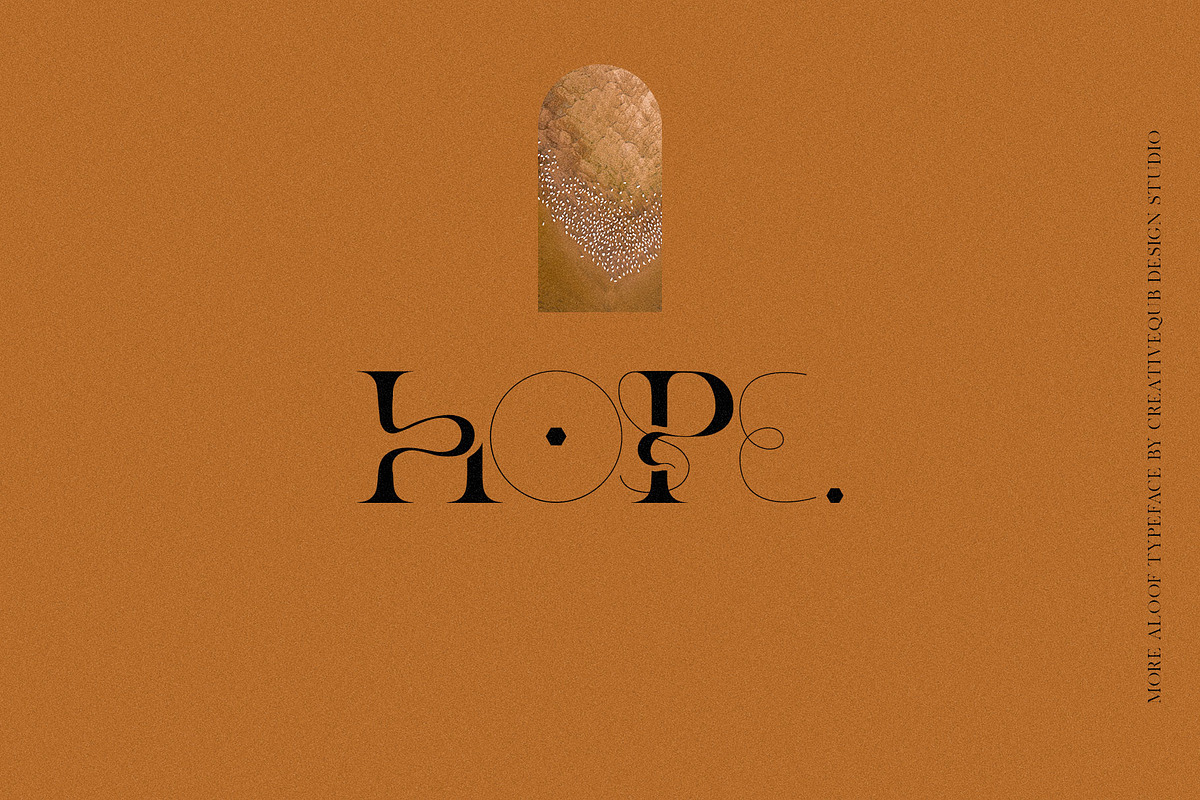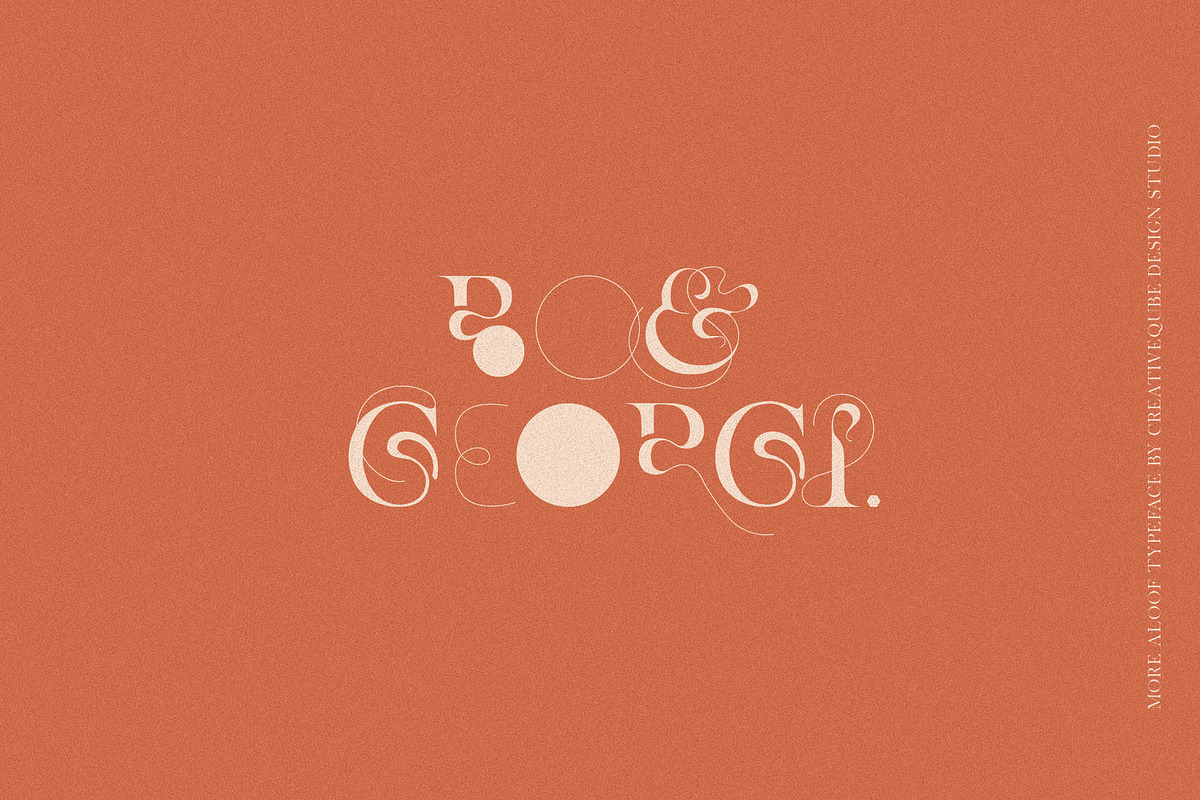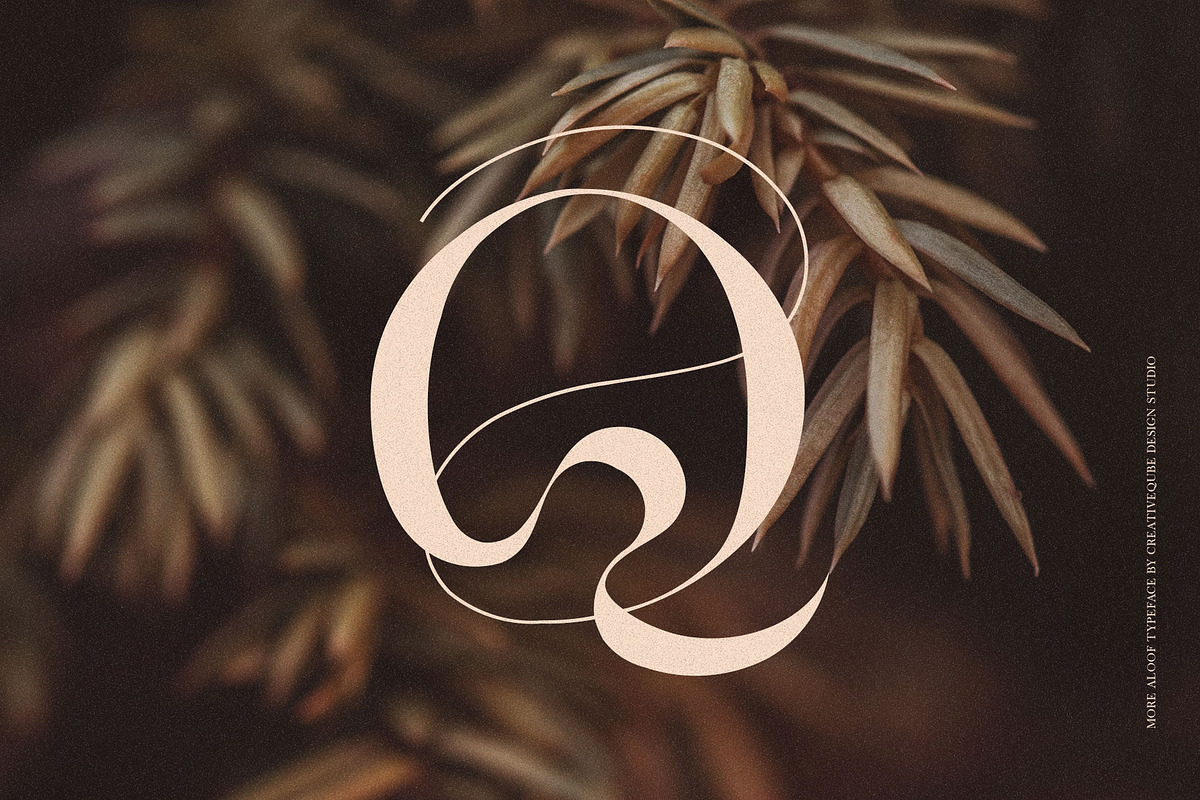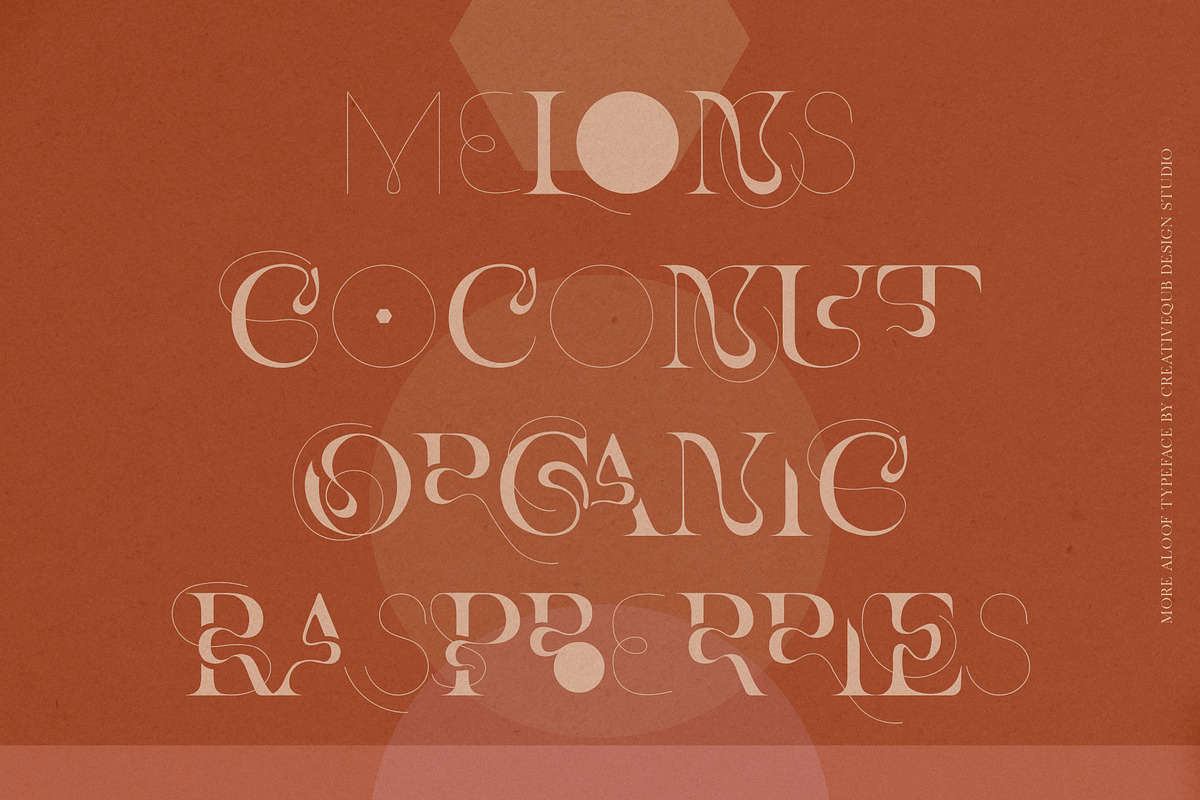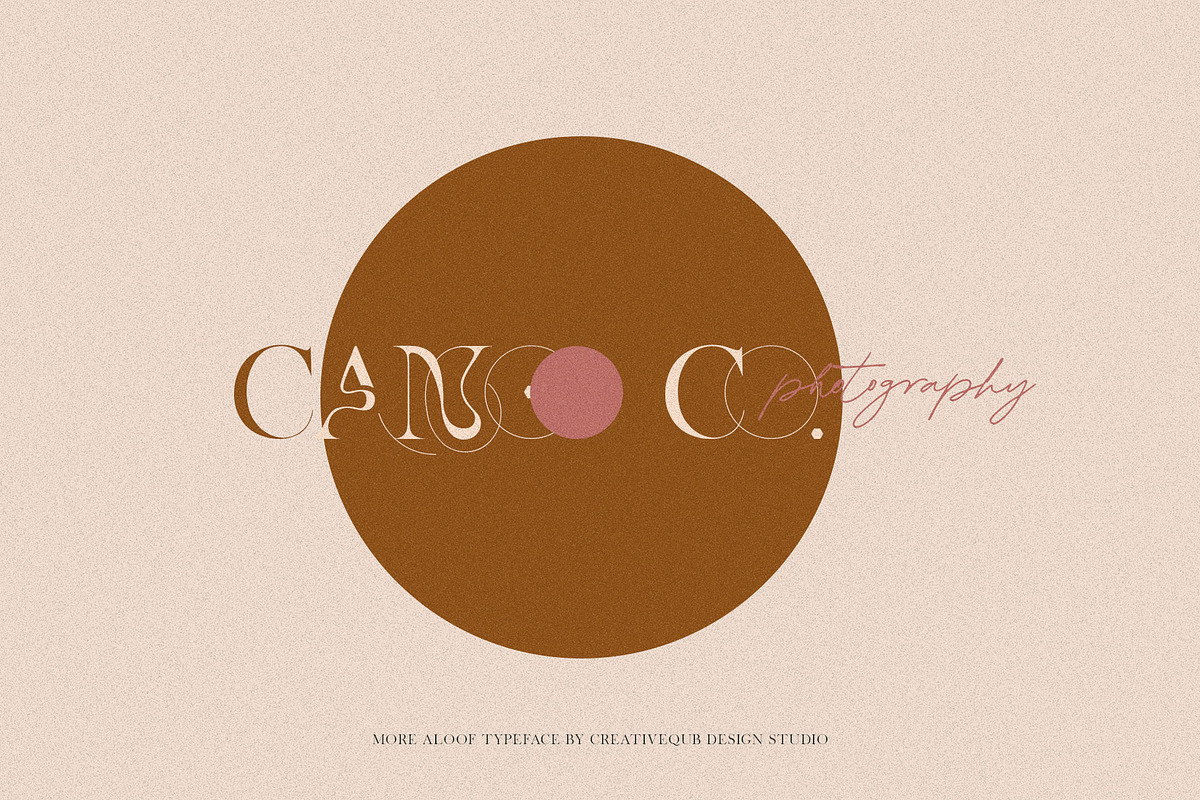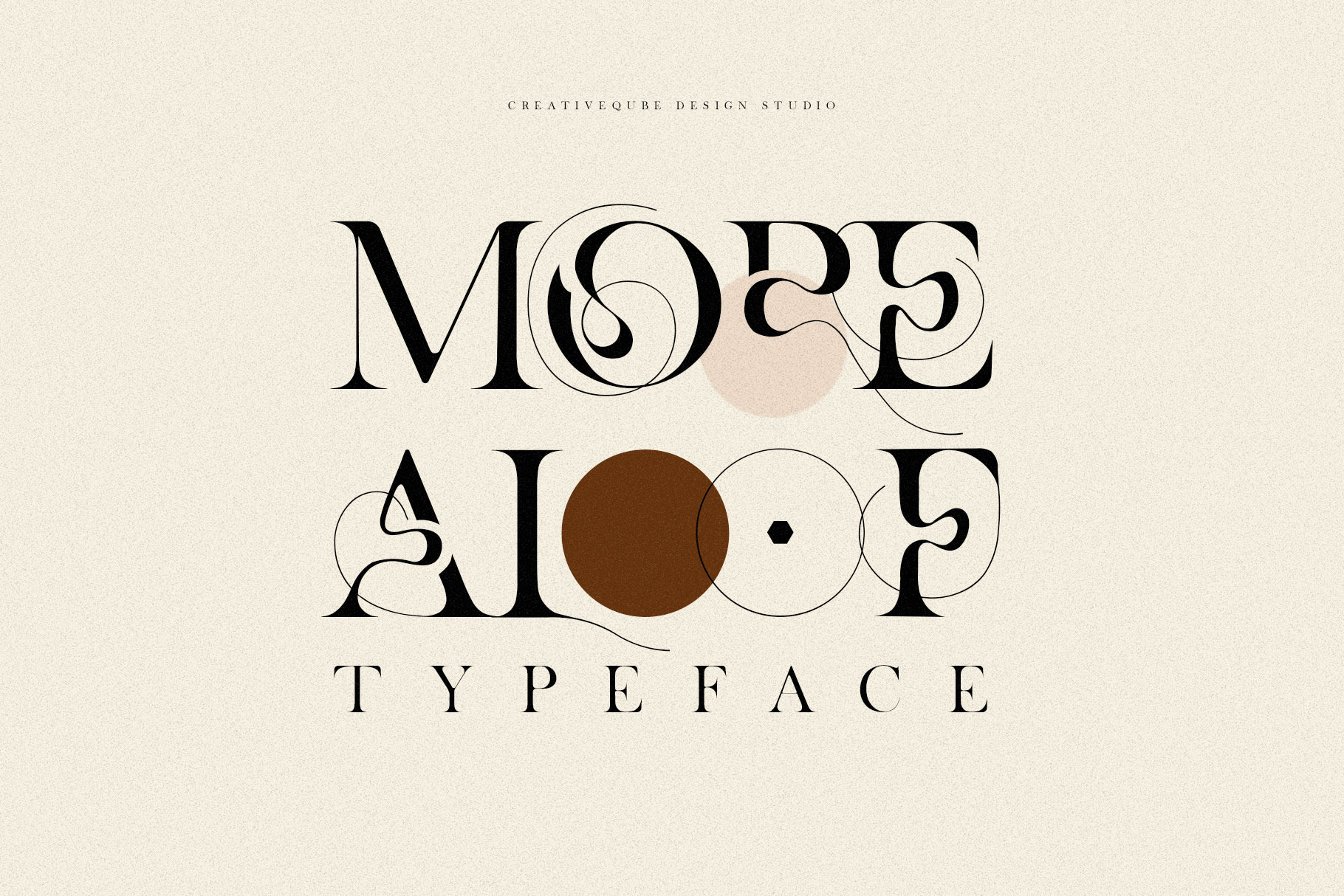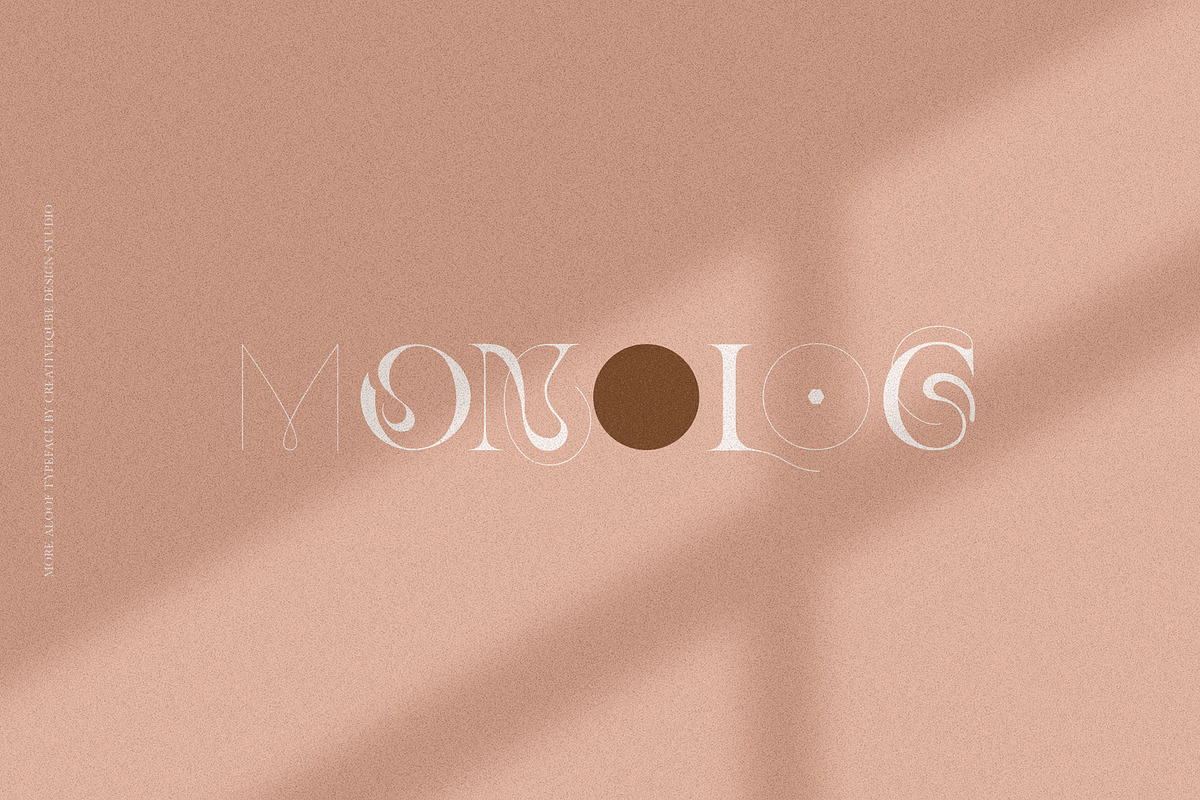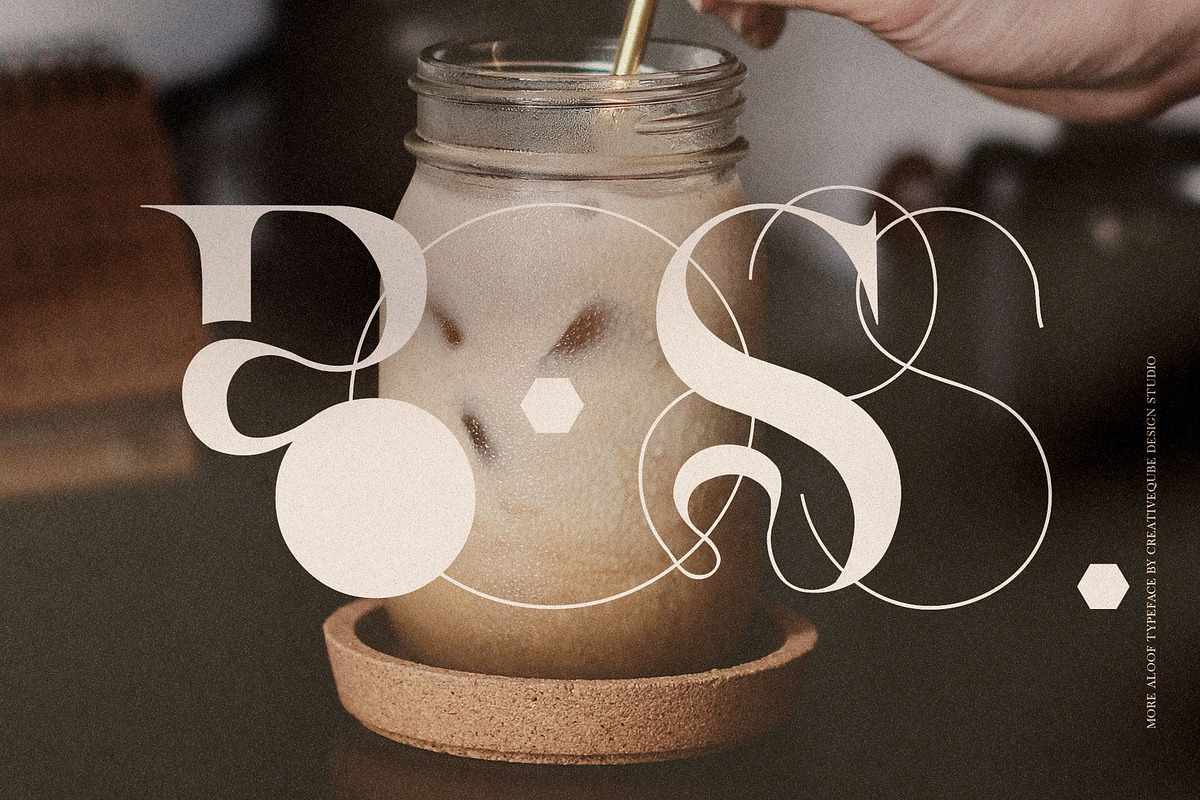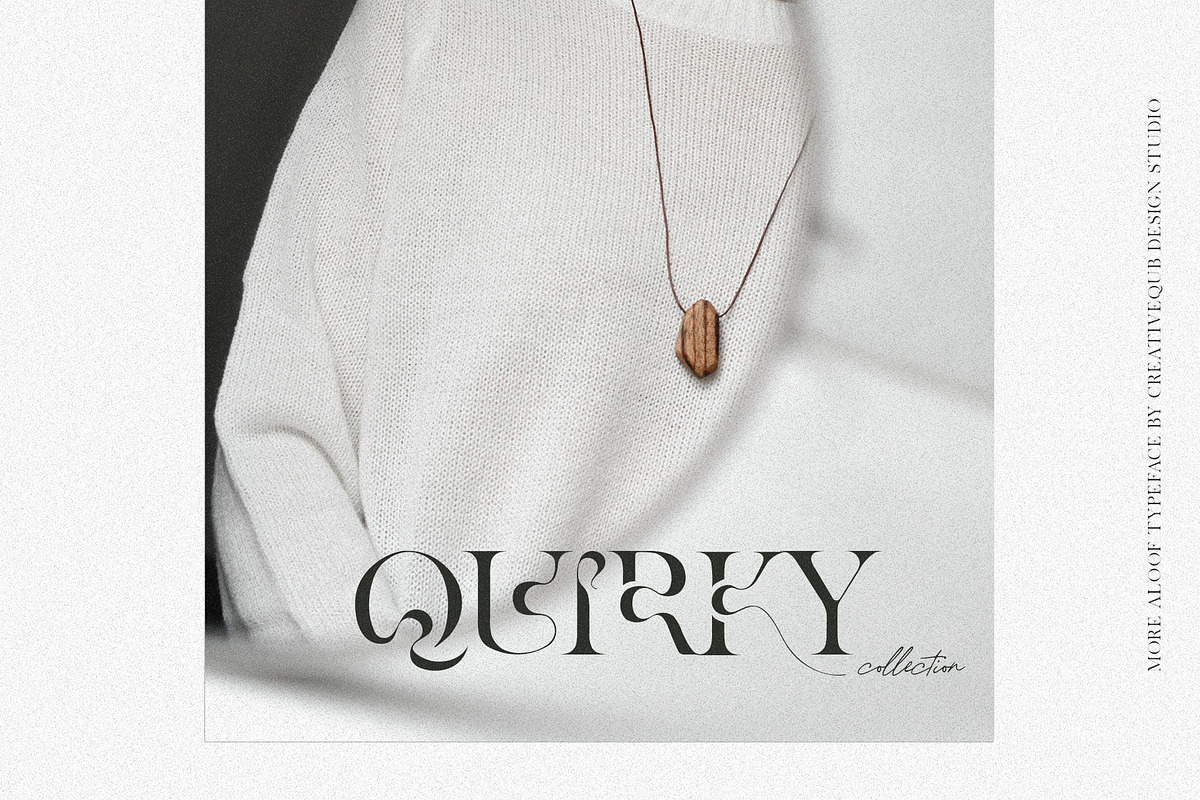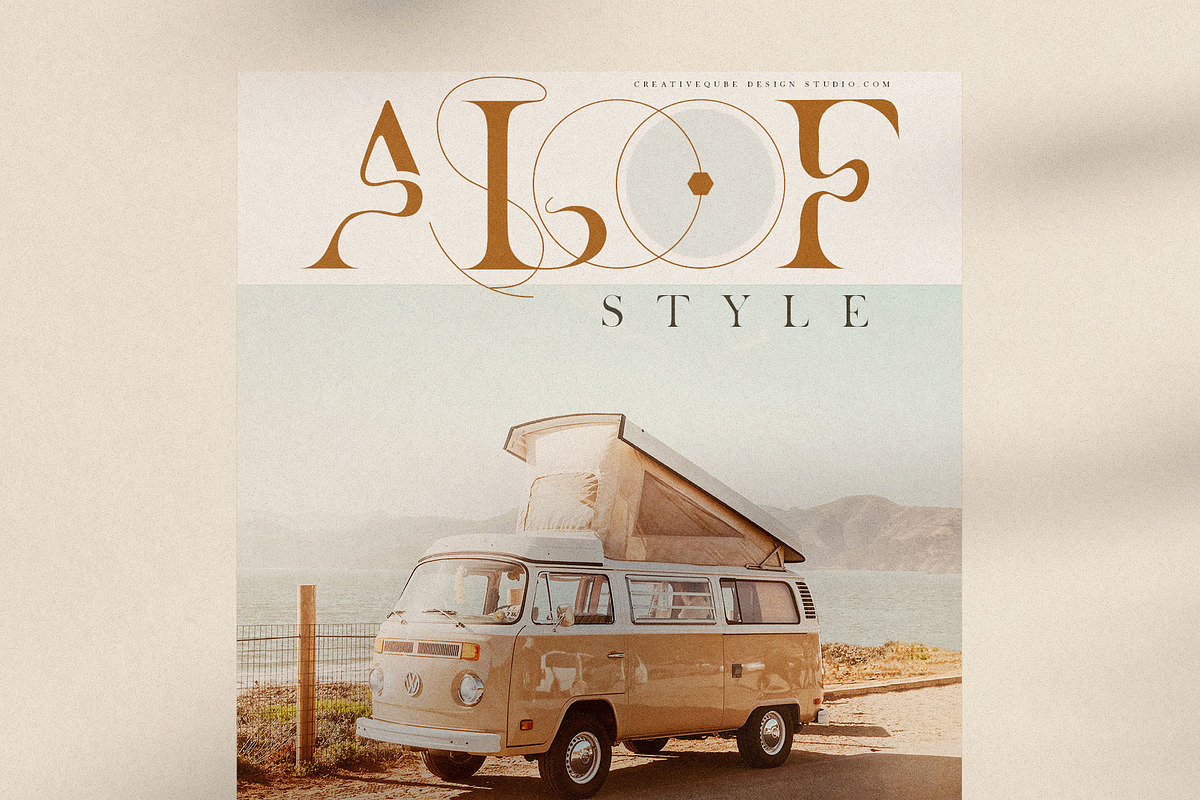
More Aloof Typeface Font
More Aloof is a genuine vintage serif font loaded with alternates that makes for stunning logos, quotes, wedding invites, blog posts, Instagram, and more! This font is a modern experimental font.
More Aloof includes a full set of Uppercase ligatures, 2 full sets of alternates, plus some extra alternates. Use uppercase or lowercase to swap between the basic font and the unique alternates, plus toggle your stylistic alternates on or off for even more alternates.